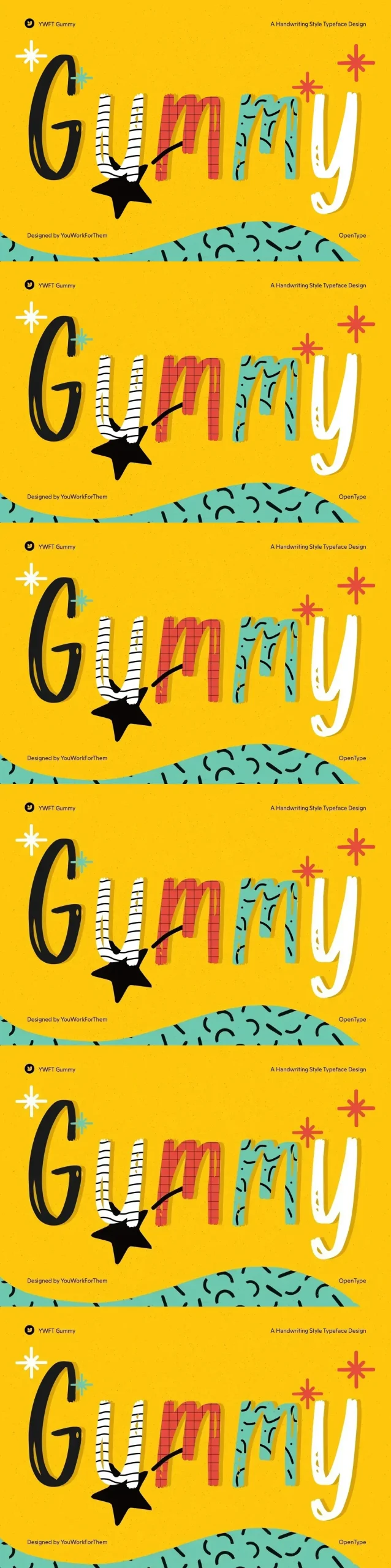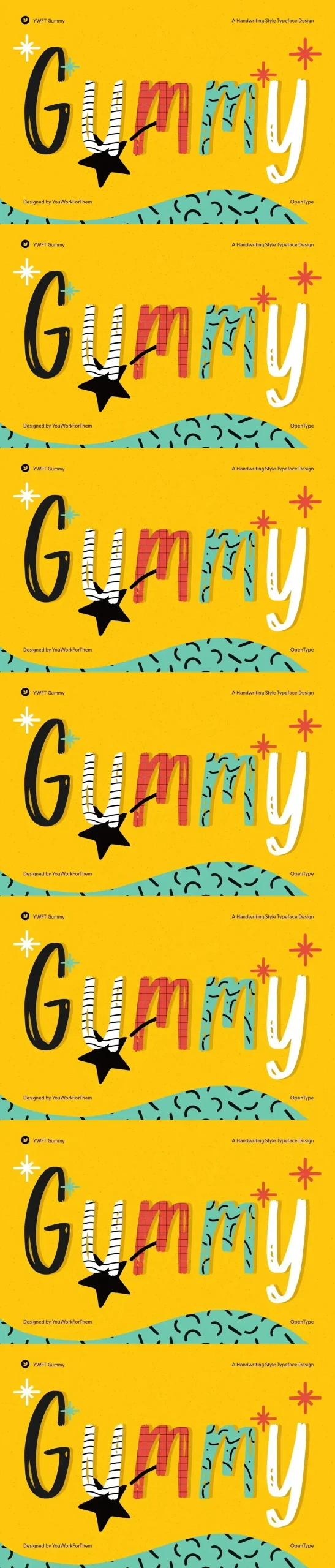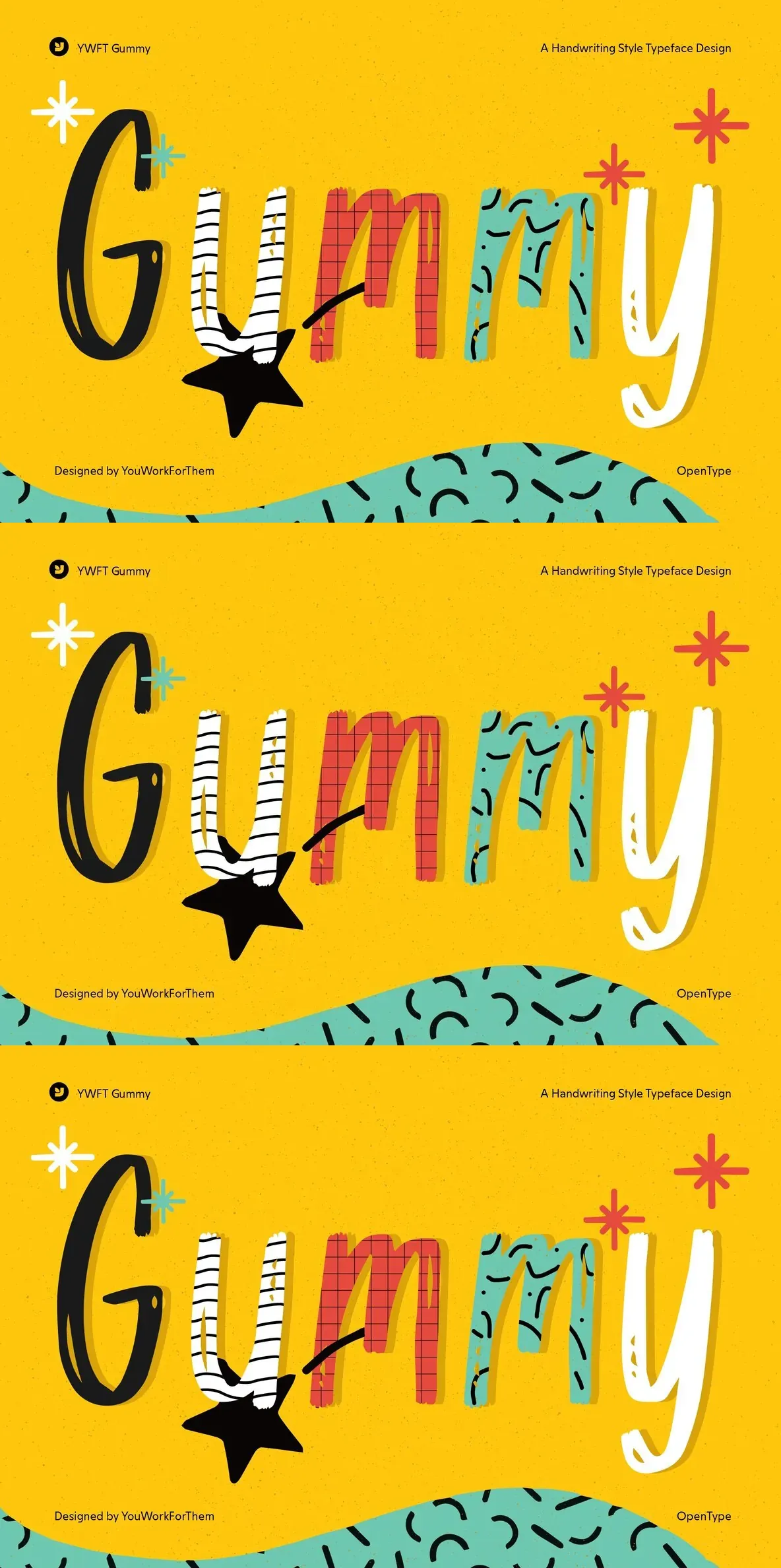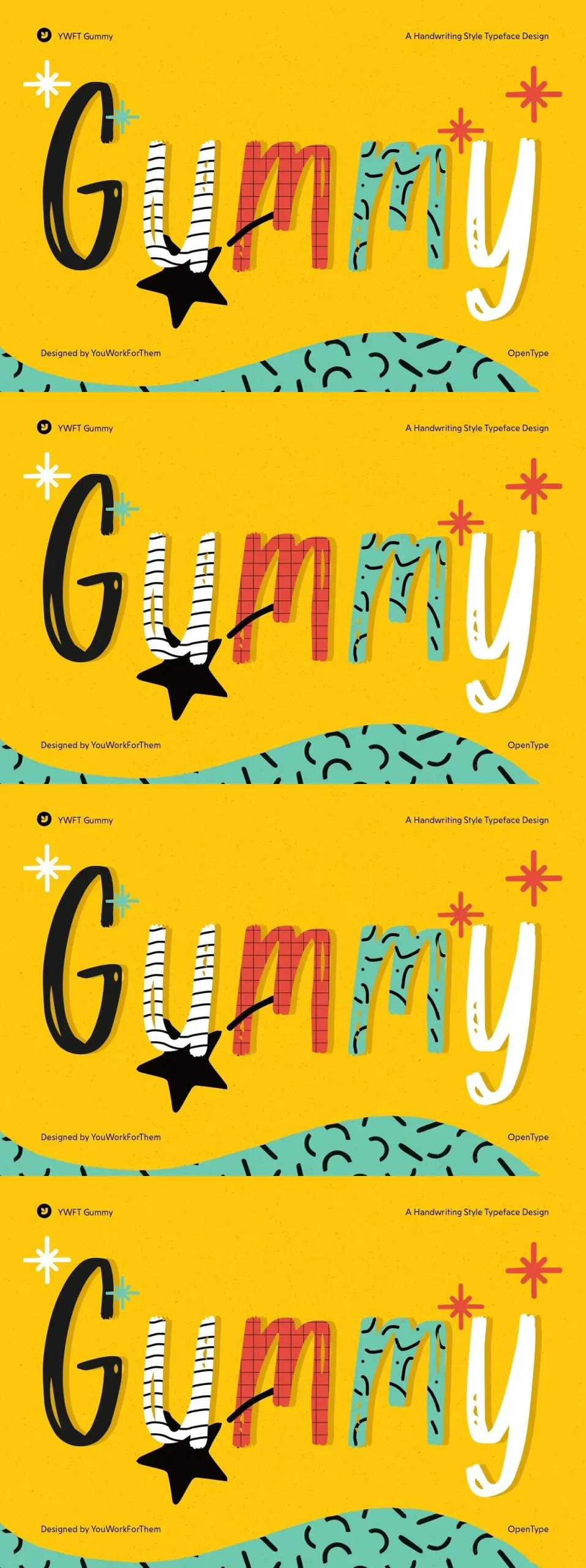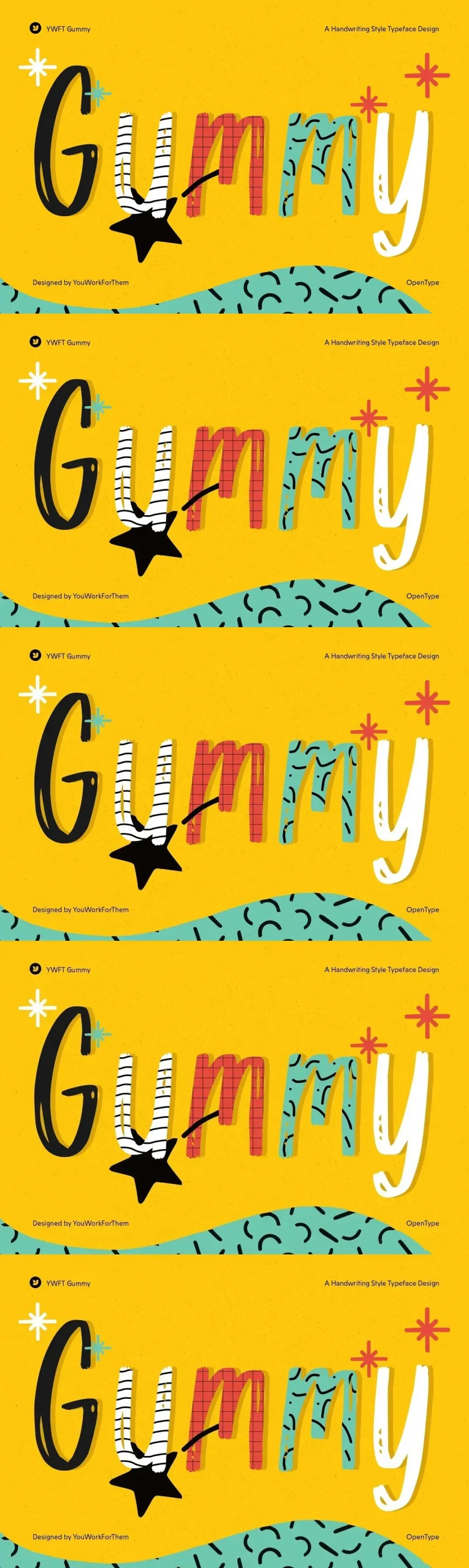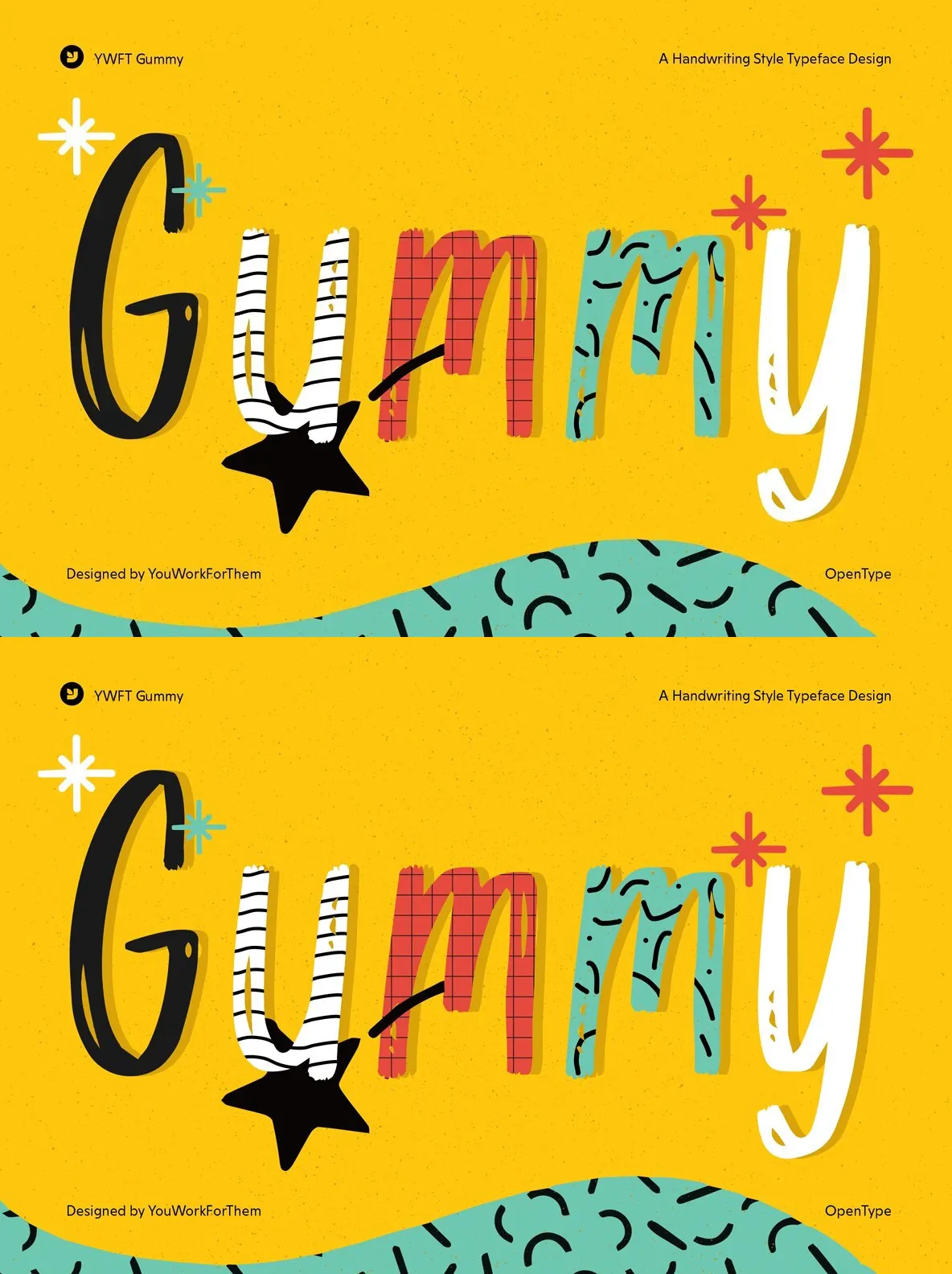
Embrace a carefree and lively design style with this display script font, perfect for infusing your projects with a sweet and spontaneous vibe. The friendly strokes of this font resemble the smooth, playful marker lettering you might find on a candy store’s window, capturing a sense of nostalgia and fun. Ideal for storefront displays, packaging for natural or homemade goods, and any project that calls for a touch of vivacity, this font’s handwriting-inspired design brings an organic, approachable feel.
This font adds a playful energy to your creative endeavors. Its bold and upbeat nature makes it an excellent choice for greeting cards and party invitations that want to convey joy and excitement. Use it to ensure your event posters, flyers, and advertisements stand out in a crowd, making your message impossible to ignore.